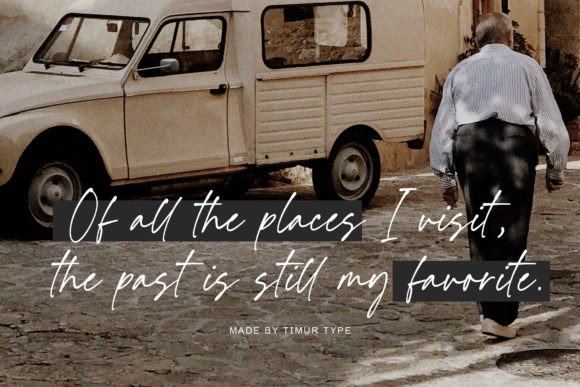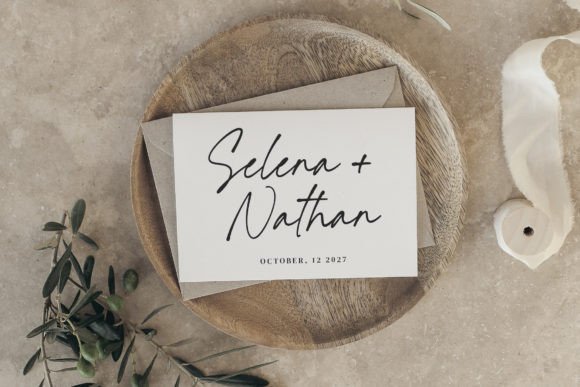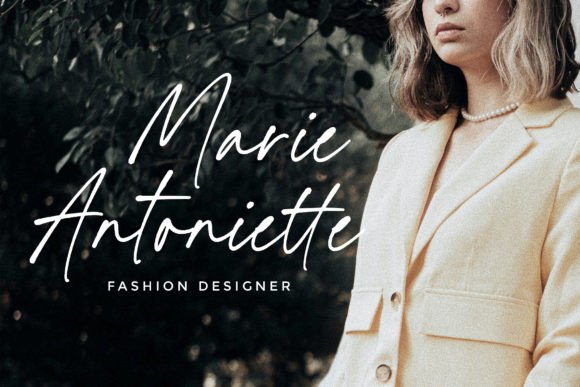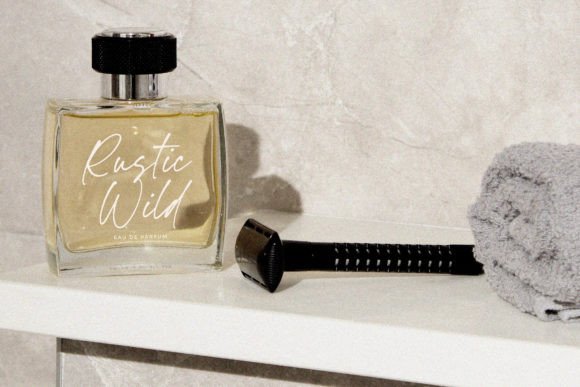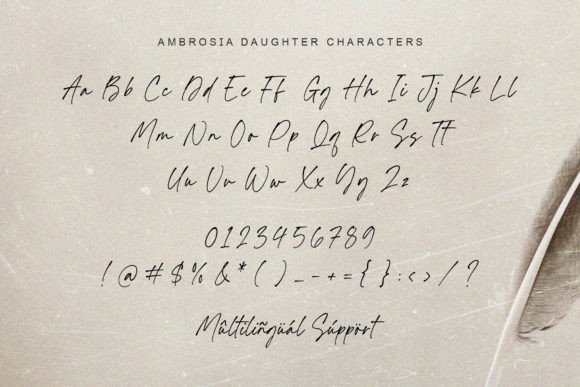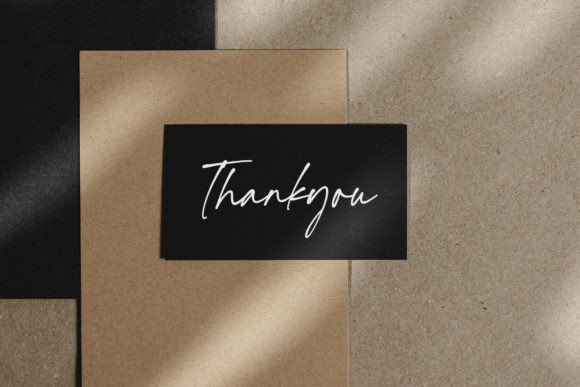
Discover the Sweet Charm of Ambrosia Daughter Font
Do you ever find yourself scrolling through Pinterest boards, getting lost in a sea of beautifully designed wedding invitations and baby announcements? I know I do! There’s something about the way a handwritten font can add a touch of warmth and personality to a design that just makes it stand out. For me, that magic happens with the Ambrosia Daughter Font.
This gorgeous, cursive handwritten font is perfect for adding a romantic and joyful touch to your designs. Whether you’re working on a wedding invitation, a birthday card, or a social media post, the Ambrosia Daughter Font is sure to add a sweet and whimsical feel. As a designer, it’s always exciting to find a font that can elevate your work and make it truly special.
Ambrosia Daughter Font Key Features
- Font Family: Ambrosia Daughter Font is a script font family designed to resemble handwritten text.
- Unique Characteristics: This font features elegant, flowing connections and subtle variations in letterforms, giving it a personal and artistic touch.
Ambrosia Daughter Font Review
Overall, I’d say Ambrosia Daughter is a lovely font, perfect for adding a touch of elegance to your designs. ✨ The font’s flowing curves and organic feel make it great for creating a whimsical atmosphere. It’s also highly legible, which is a big plus in my book.
One of the things that really stands out about Ambrosia Daughter is its versatility. ✨ It can be used for a wide range of projects, from branding and advertising to editorial and educational materials. And, with 14 different styles to choose from, you’re sure to find the perfect fit for your needs.
Limits and Challenges
- ⚠️ Limited language support: While Ambrosia Daughter is a great font for English and other Western languages, it may not be as effective for languages that require more complex typography, such as Arabic or Chinese.
- ⚠️ May not be ideal for body text: While the font is highly legible, it’s not the best choice for large blocks of body text. It’s better suited for headings and titles.
Ambrosia Daughter is a beautiful font that’s sure to add a touch of sophistication to your designs. While it may have some limitations, its versatility and elegance make it a great choice for a wide range of projects. Just be sure to use it thoughtfully and in the right context to get the most out of it.
Ambrosia Daughter Font is a beautiful, elegant font that works well for:
2. Luxury branding and marketing materials.
3. High-end product packaging and labels.
Alternatives to Ambrosia Daughter Font
Ambrosia Daughter Font is a unique, elegant script font. If you’re looking for alternatives, consider the following options:
Carolyna Pro is a modern script font with a touch of elegance. It’s perfect for designers who want a sophisticated, yet approachable look. It has a similar flowing feel to Ambrosia Daughter Font, but with a more refined and polished appearance.
Pacifico is a beautiful, handwritten script font with a relaxed, beachy vibe. It’s ideal for designers who want to create a calming and serene atmosphere. Compared to Ambrosia Daughter Font, Pacifico has a more casual and laid-back feel.
Great Vibes is a modern script font with a touch of whimsy and playfulness. It’s perfect for designers who want to add a sense of fun and energy to their designs. Compared to Ambrosia Daughter Font, Great Vibes has a more dynamic and adventurous feel.
Q: Can I customize the Ambrosia Daughter Font?
Yes, the Ambrosia Daughter Font is a highly customizable font. It includes a wide range of OpenType features, such as ligatures, swashes, and stylistic sets, which can be accessed through your design application. You can also use font editing software to customize the font’s design and layout.